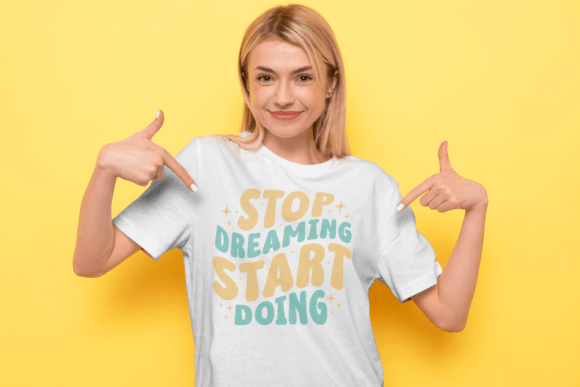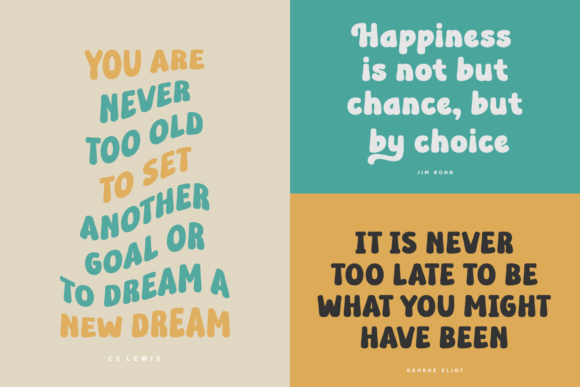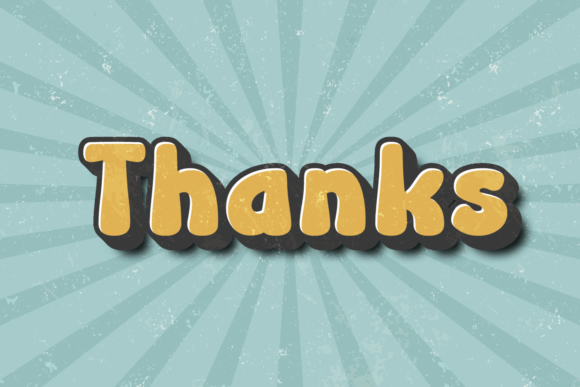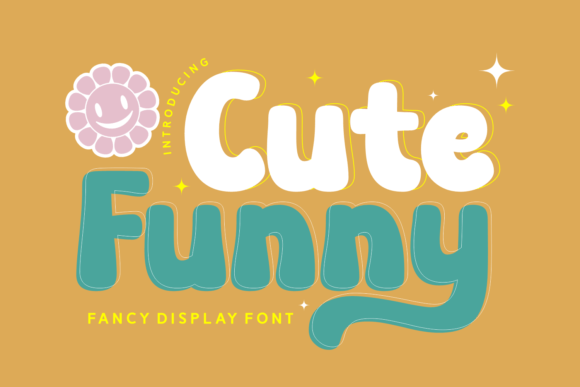
Cute Funny Font: The Perfect Addition to Your Design Library
Are you tired of using the same old fonts in your designs? Look no further! Introducing Cute Funny Font, a thick and beautiful display font that’s sure to bring a smile to your face. With its chubby letters and cheerful spirit, this font is an incredible asset to your design library.
What Makes Cute Funny Font So Special?
Cute Funny Font is a unique and eye-catching font that’s perfect for creating charming posters, apparel, invitations, cards, headlines, titles, advertisements, signage, and more. Its playful and fun design makes it ideal for projects that require a touch of whimsy and personality.
One of the standout features of Cute Funny Font is its PUA encoding. This means that you can easily access all the glyphs and swashes, giving you even more creative freedom to experiment with different designs and styles.
With Cute Funny Font, the design possibilities are endless. Here are just a few ideas to get you started:
• Create charming posters and flyers for events, promotions, or announcements
• Design adorable apparel, such as t-shirts, hoodies, or tote bags
• Craft beautiful invitations and cards for special occasions, like birthdays or weddings
• Develop eye-catching headlines and titles for blogs, articles, or social media posts
• Make signage and displays that will grab attention and leave a lasting impression
Why Choose Cute Funny Font?
So, why should you choose Cute Funny Font for your design projects? Here are just a few reasons:
• Unique and eye-catching design: Cute Funny Font stands out from the crowd with its playful and fun design
• Versatile: This font can be used for a wide range of design projects, from posters and apparel to invitations and signage
• Easy to use: With PUA encoding, you can easily access all the glyphs and swashes, making it simple to experiment with different designs and styles
• High-quality: Cute Funny Font is a high-quality font that’s designed to deliver exceptional results
Tips for Using Cute Funny Font
Here are a few tips for using Cute Funny Font in your design projects:
• Experiment with different sizes and colors: Cute Funny Font looks great in a variety of sizes and colors, so don’t be afraid to experiment and find the perfect combination for your design
• Pair it with other fonts: Cute Funny Font can be paired with other fonts to create a unique and interesting design
• Use it to add personality to your designs: Cute Funny Font is all about adding a touch of whimsy and personality to your designs, so don’t be afraid to get creative and have fun with it
In conclusion, Cute Funny Font is a must-have addition to your design library. With its unique and eye-catching design, versatility, ease of use, and high-quality construction, this font is perfect for designers and crafters who want to add a touch of personality to their designs. So why wait? Download Cute Funny Font today and start creating charming and eye-catching designs that will leave a lasting impression!